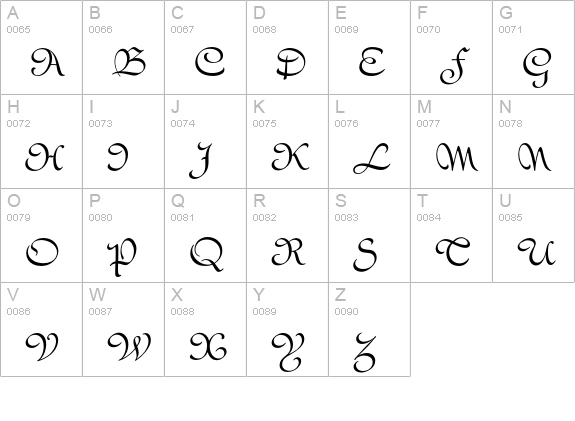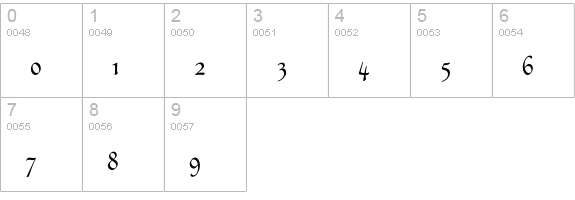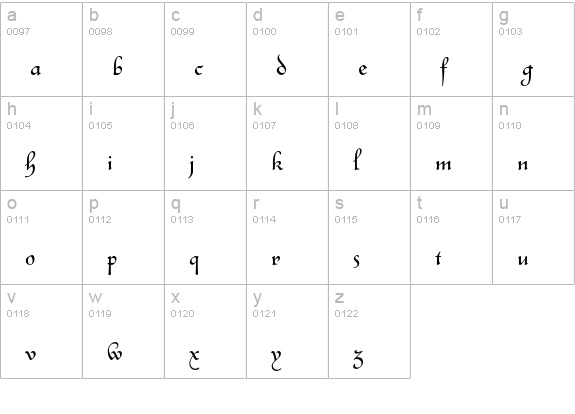
Civilite MJ Std Font Details
Civilite MJ Std font is a stylish and elegant typeface that exudes sophistication and charm. Its delicate lines and ornate flourishes add a touch of refinement to any design project. This font is perfect for creating invitations, wedding stationery, and other special occasions where a touch of class is desired. What sets Civilite MJ Std font apart is its timeless appeal and classic beauty. The intricate details of the letterforms make it a standout choice for those looking to add a touch of old-world charm to their designs. Whether you are working on a vintage-inspired project or simply want to elevate your typography game, this font is sure to impress. The best part about Civilite MJ Std font is that it is available for free download at FontsMarket.com. Now you can add this exquisite typeface to your font collection without breaking the bank. Don't miss out on the opportunity to enhance your designs with the beauty and elegance of Civilite MJ Std font. Download it today and elevate your projects to new heights of sophistication.